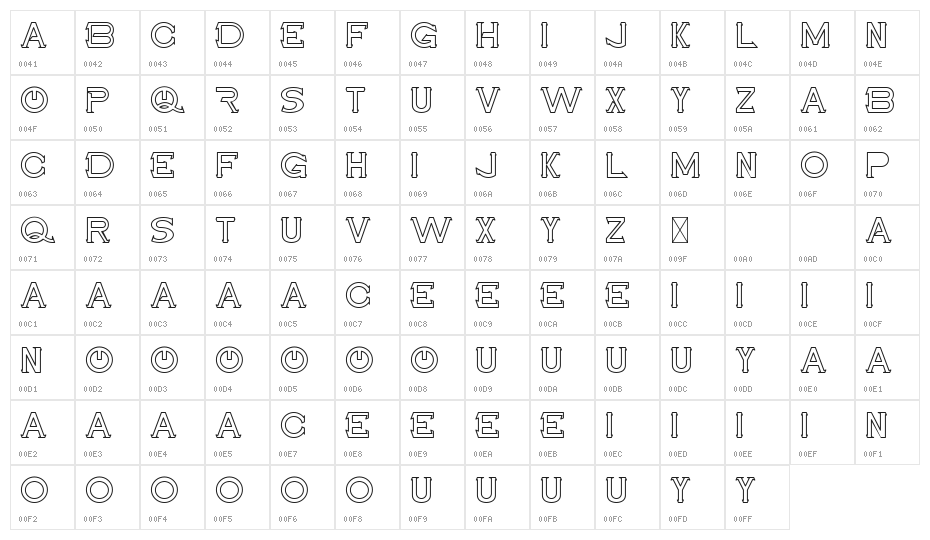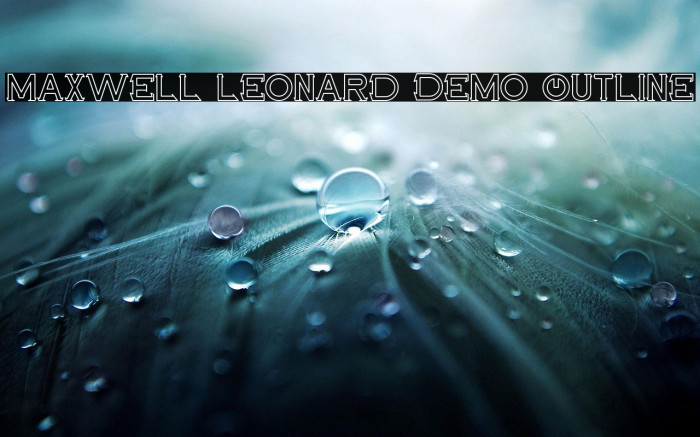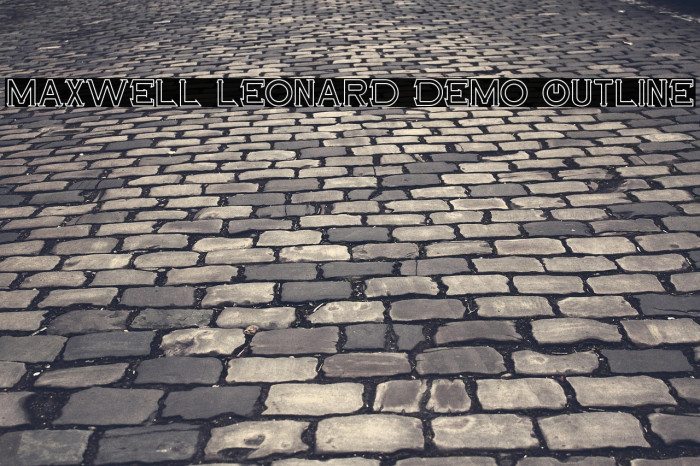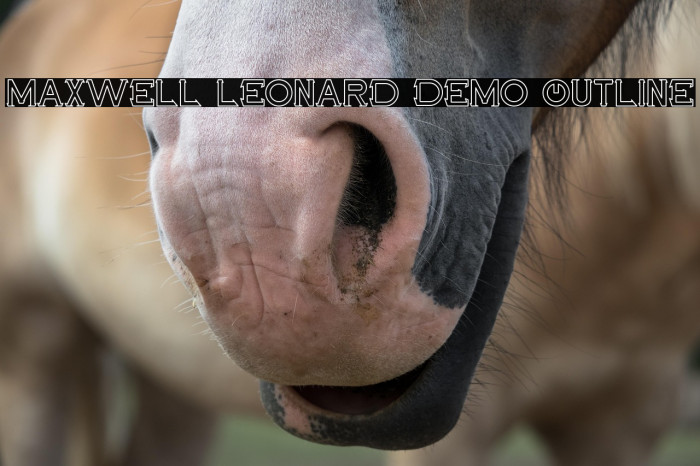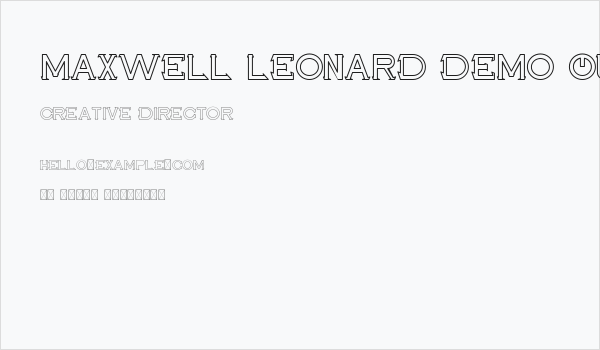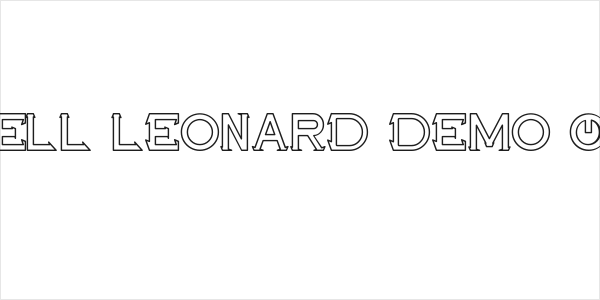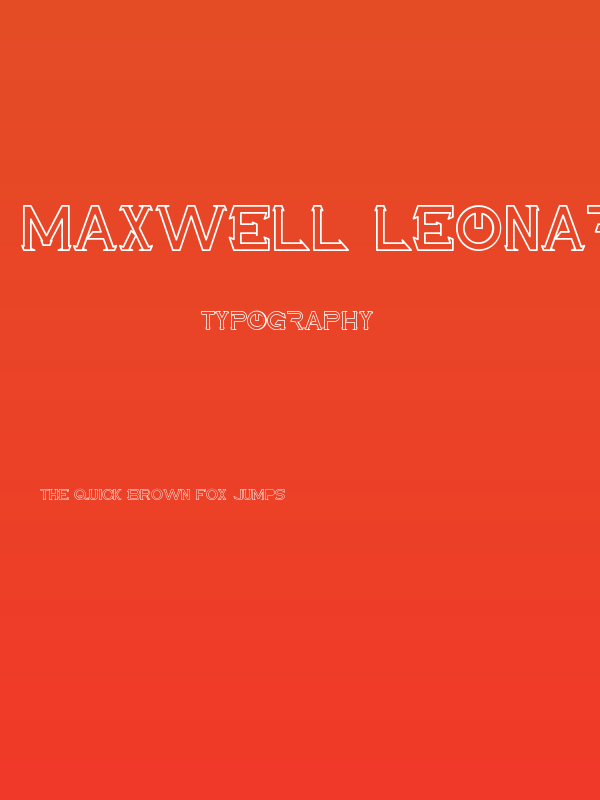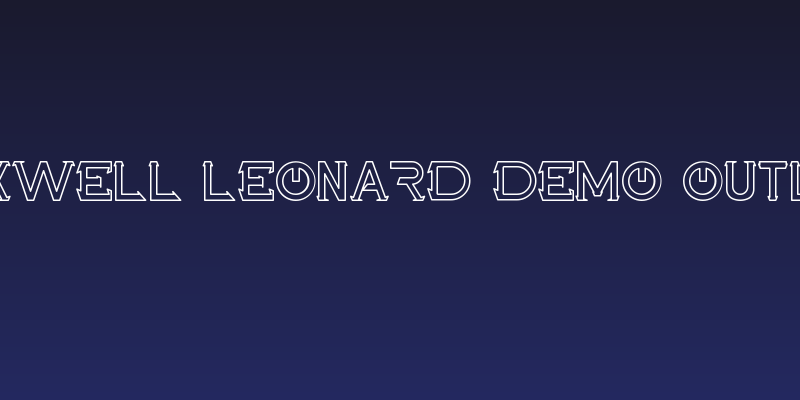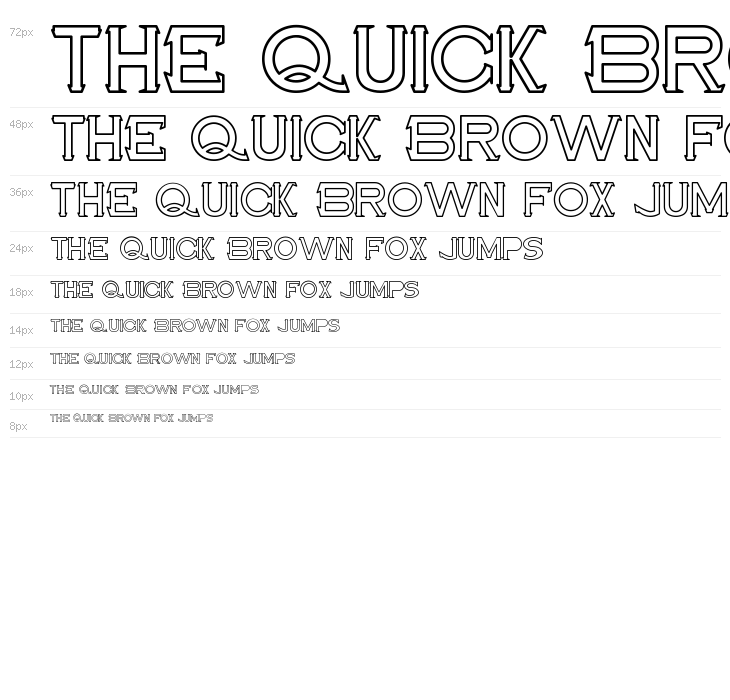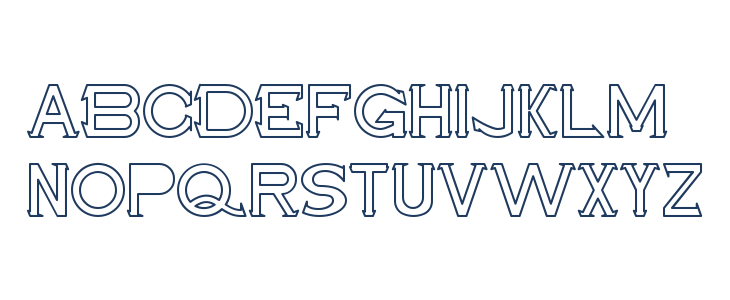
Maxwell Leonard Demo Outline Font
Maxwell Leonard Demo Outline Description
This font features a bold, geometric outline style that emphasizes each character's structure with a clear, defined edge. The uppercase letters are designed with a modern aesthetic, incorporating sharp angles and clean lines. The font's outline nature gives it a unique, eye-catching appearance, making it suitable for display purposes. The characters maintain a consistent height and width, providing a uniform look across the alphabet. The design is both contemporary and versatile, allowing for creative applications in various projects.
| Proposed Projects | Ideal for branding, posters, headlines, and any project requiring a striking and modern typeface. |